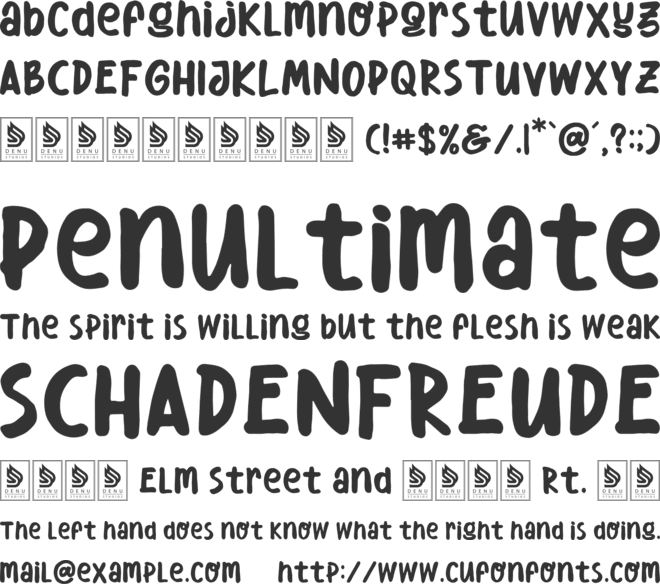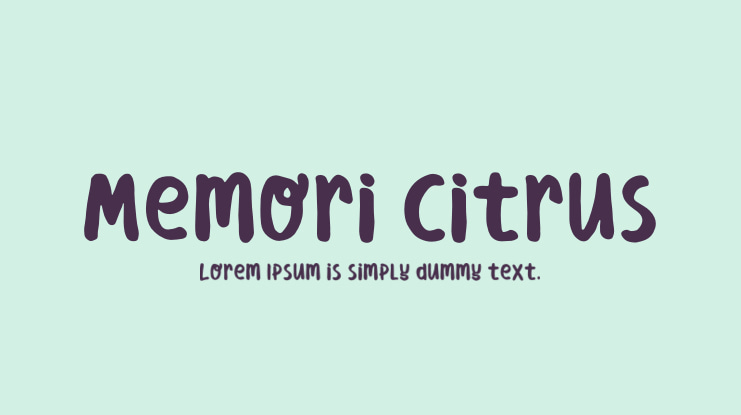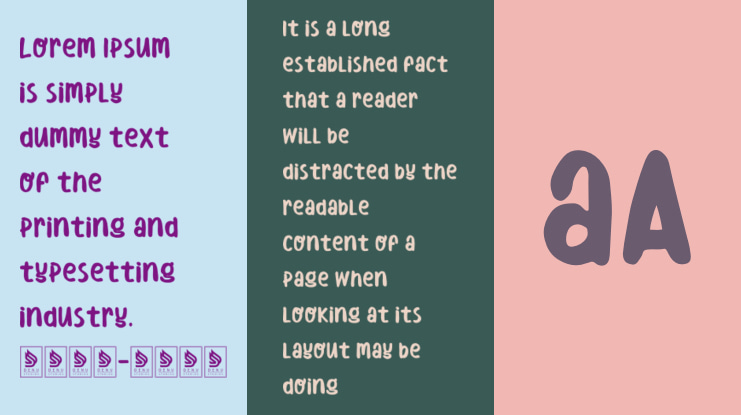
Memori Citrus Font Family
Memori Citrus | Hand Drawn 2 Style Font is suitable for various projects such as logos, branding projects, homeware designs, product packaging, mugs, quotes, posters, shopping bags, t-shirts, book covers, name cards, invitation cards, greeting cards, labels, photography, watermarks, special events, and all your other lovely projects that need a Hand Drawn 2 Style Font taste.